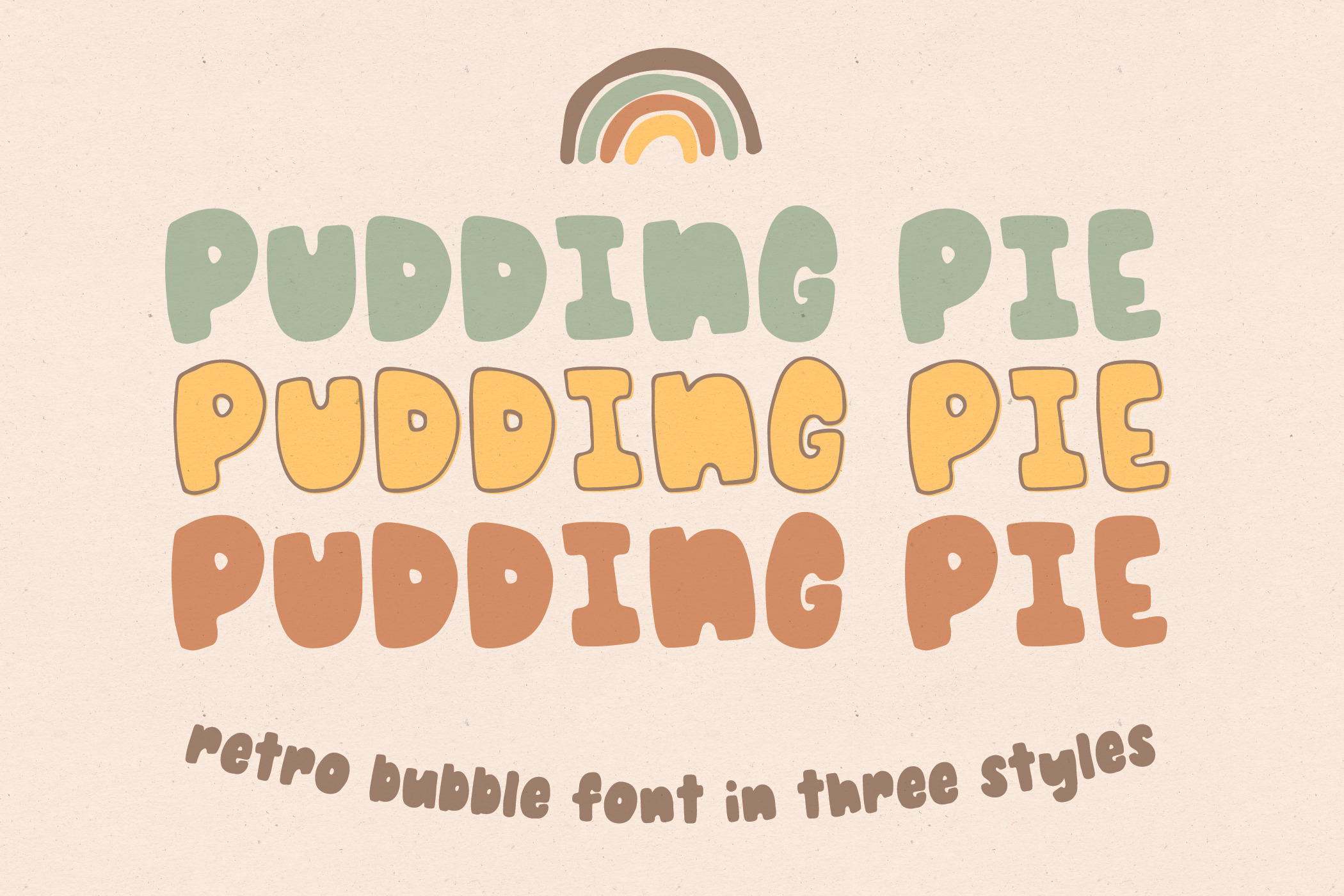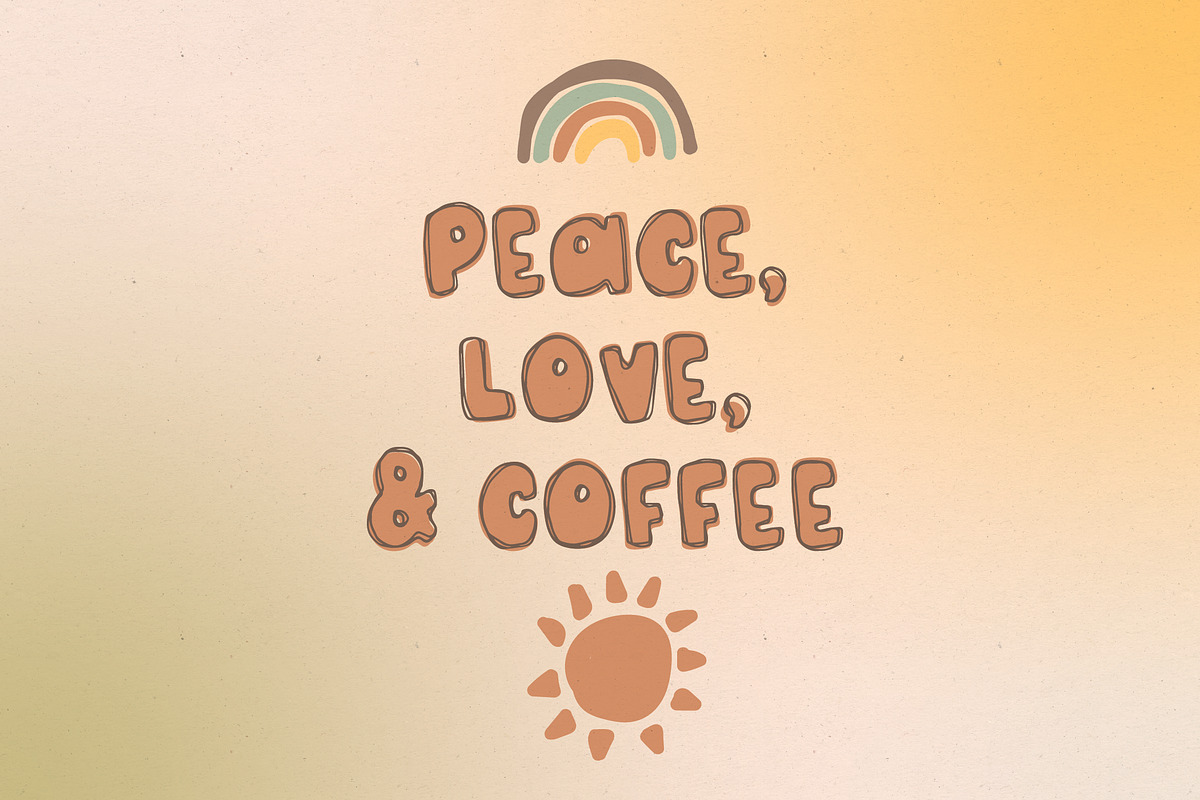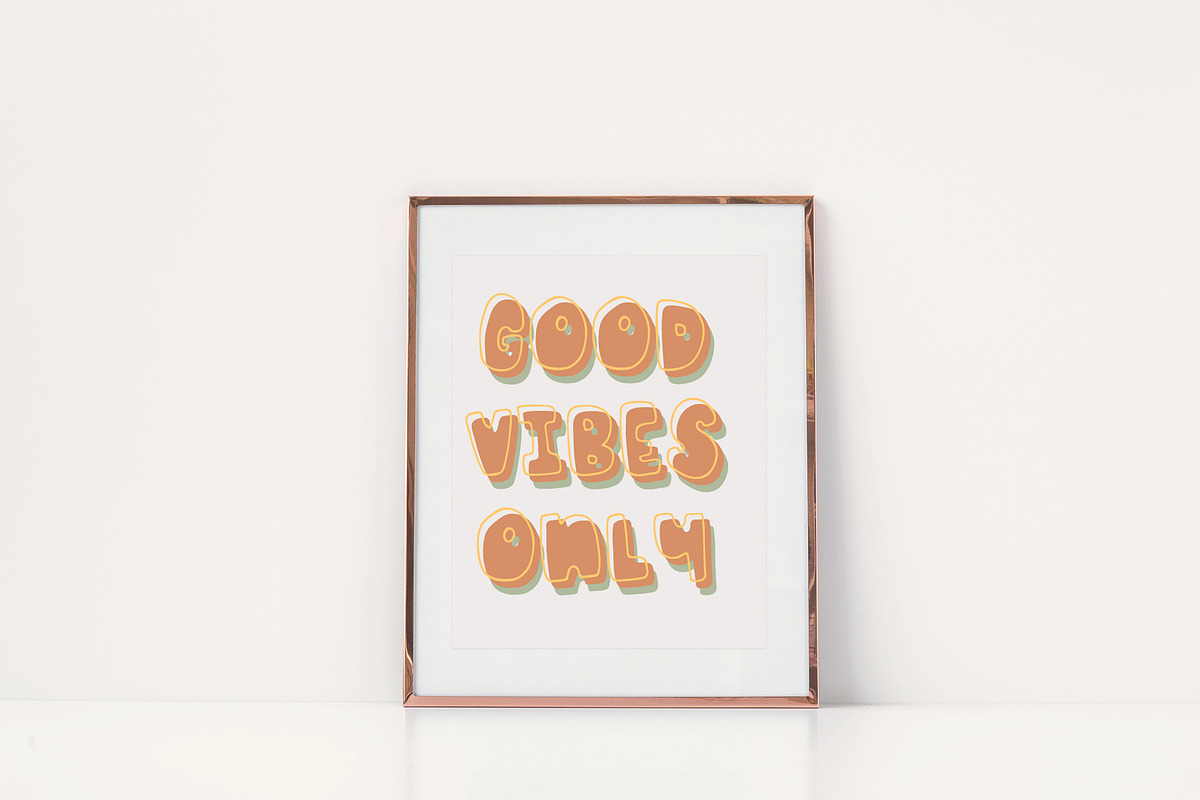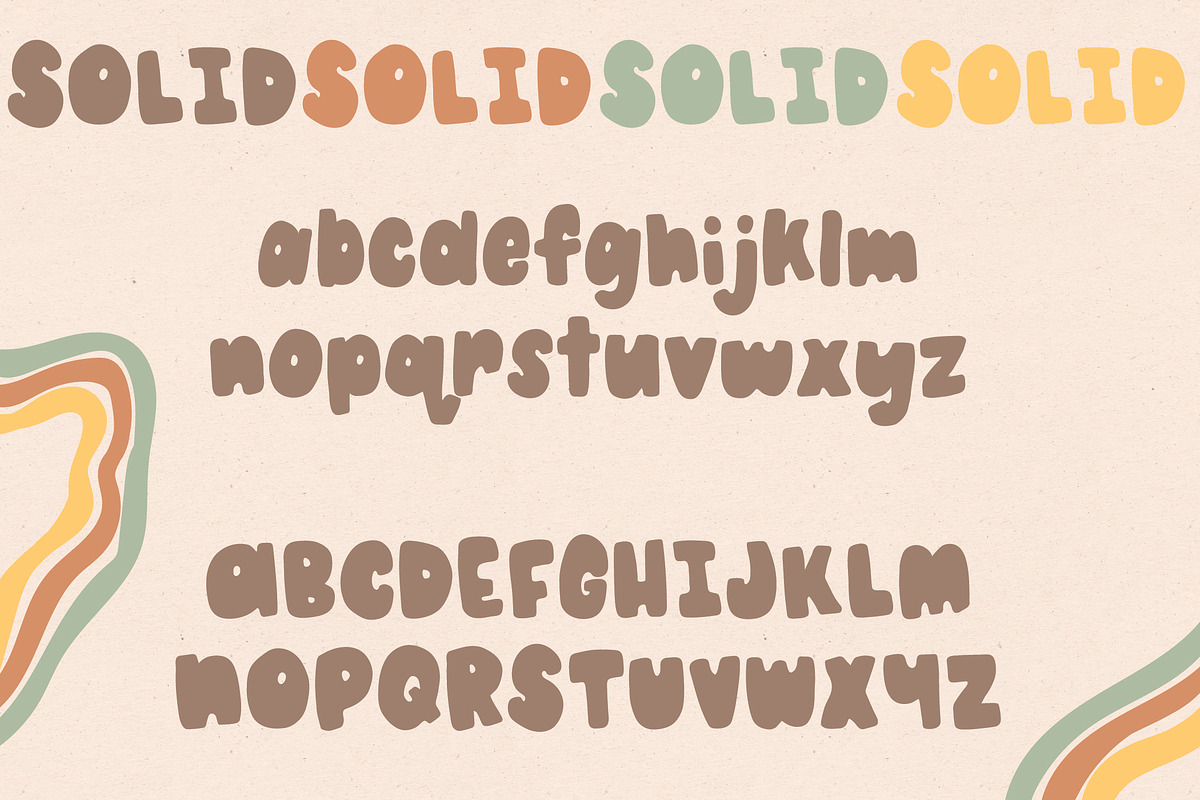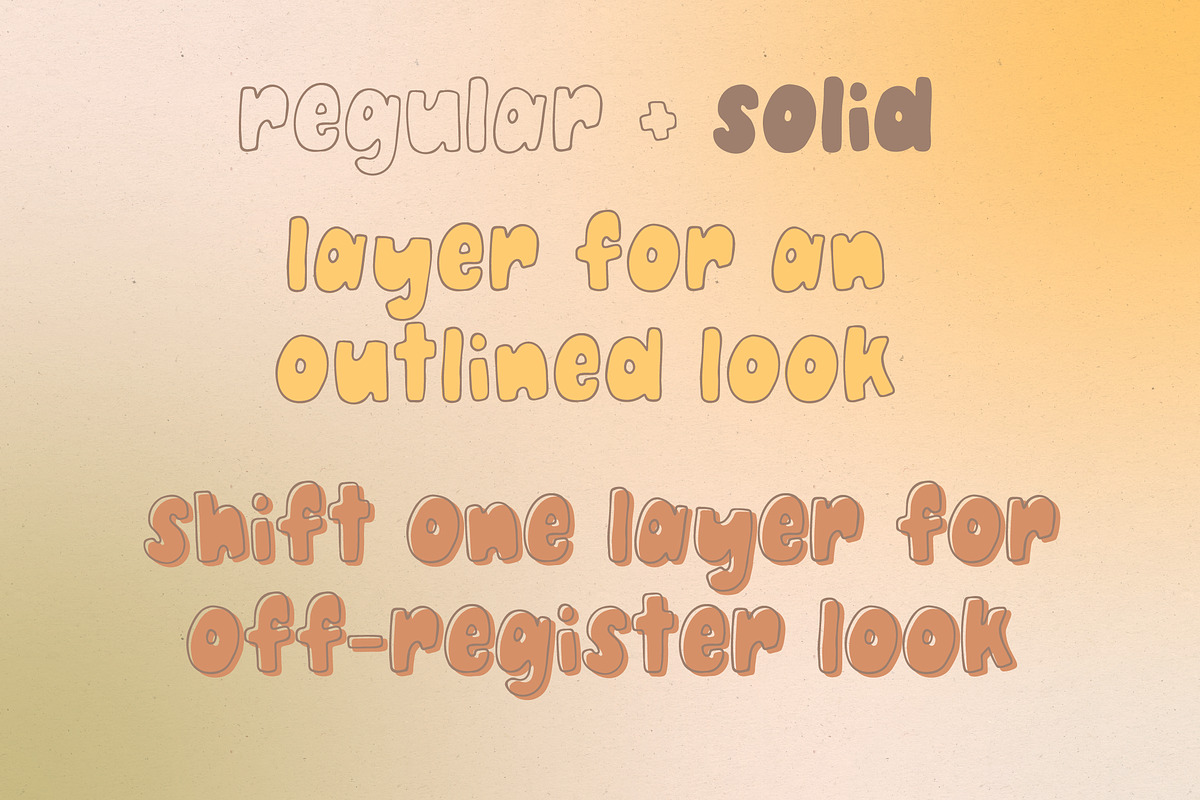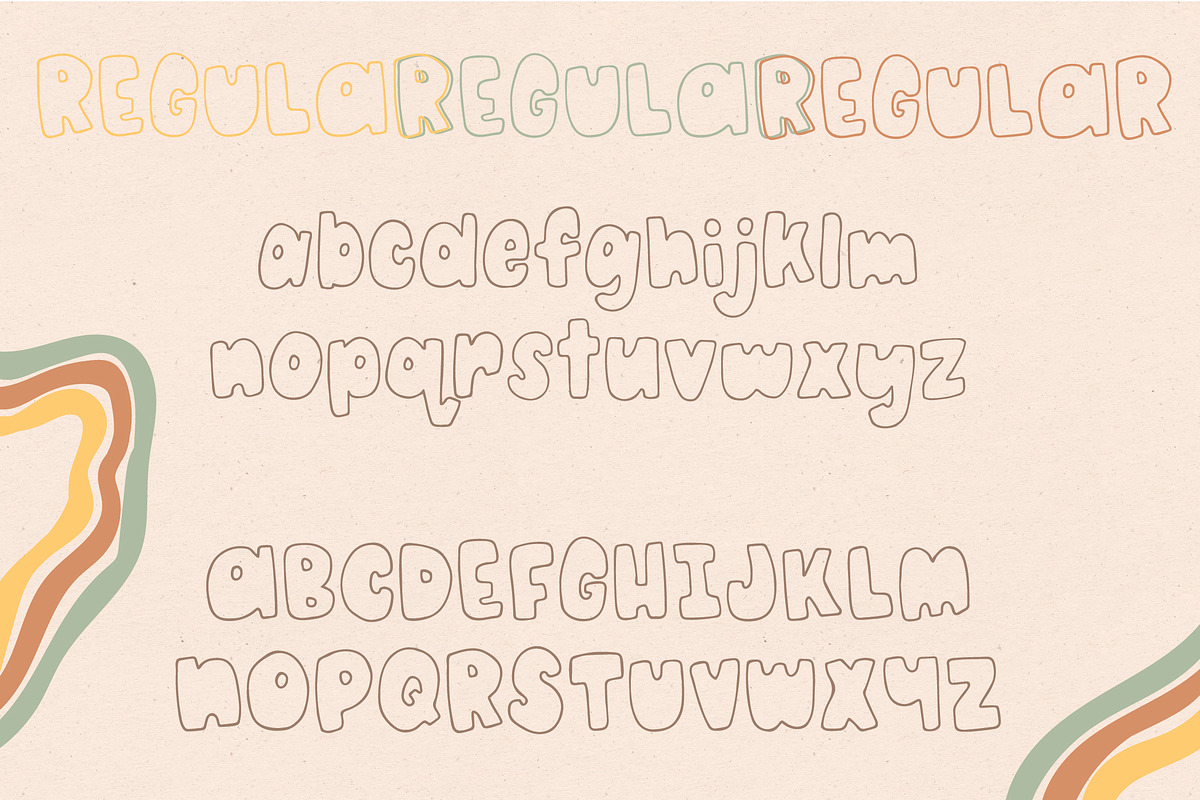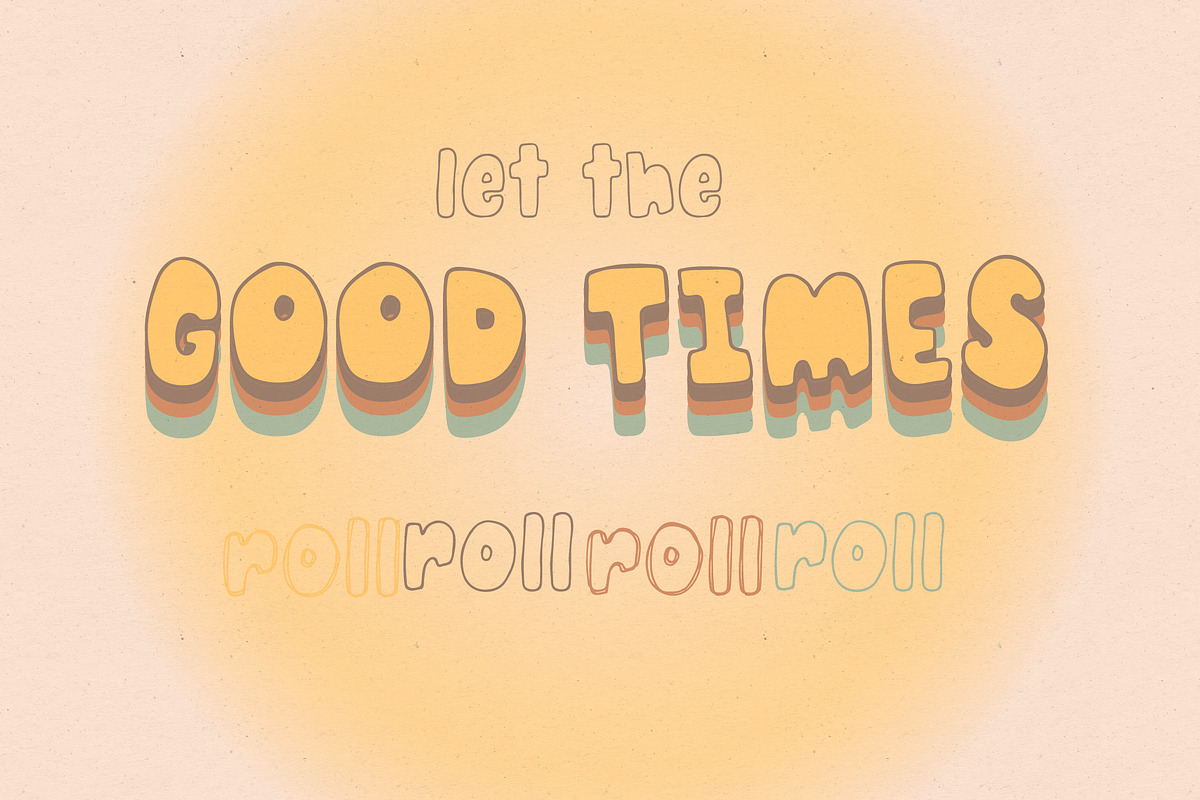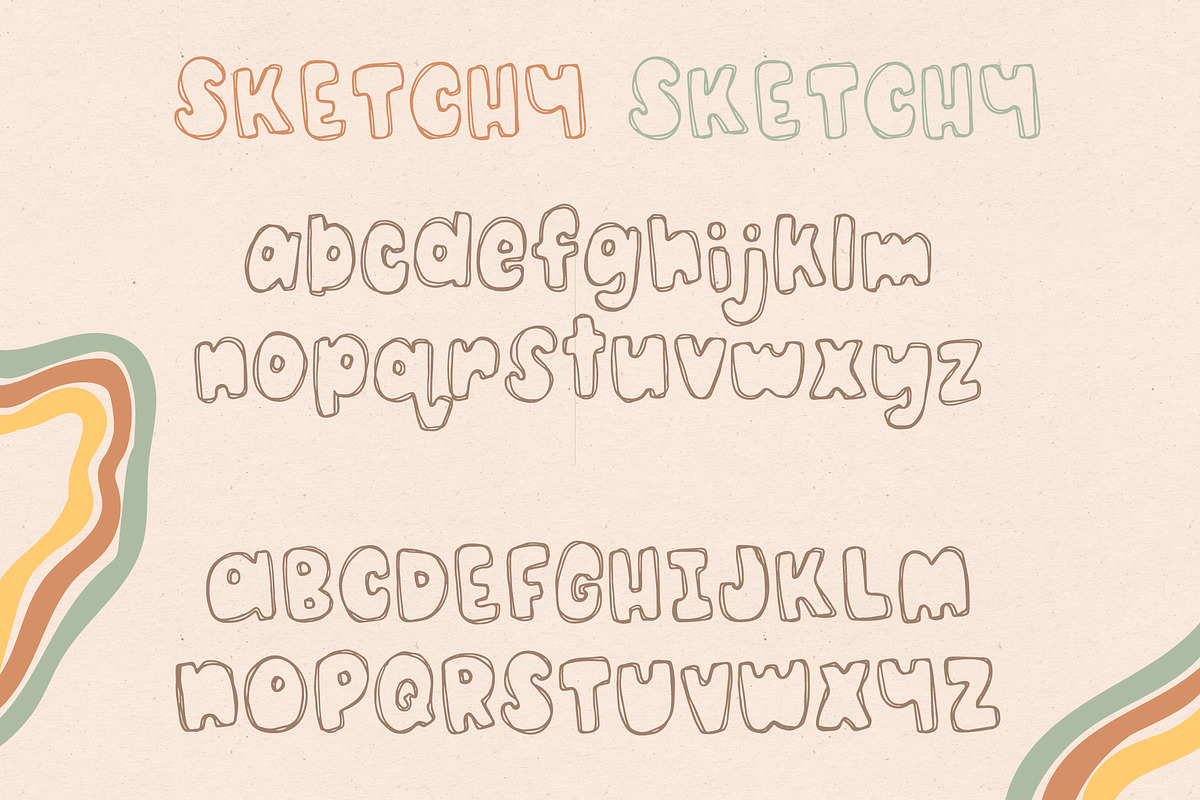
Pudding Pie Retro Font
Pudding Pie Retro Font in Three Styles
I designed this handwritten font as a playful take on 70s style bubble letters. It includes 3 styles to mix and match! A solid version, an outline that layers perfectly, and a carefree sketchy version.
Simple and unserious, Pudding Pie lends a playful retro touch to any project.
Pudding Pie:
- includes uppercase and lowercase A-Z
- includes numbers, symbols, and punctuation
- is uniquely handwritten
- includes 3 mix-and-match styles